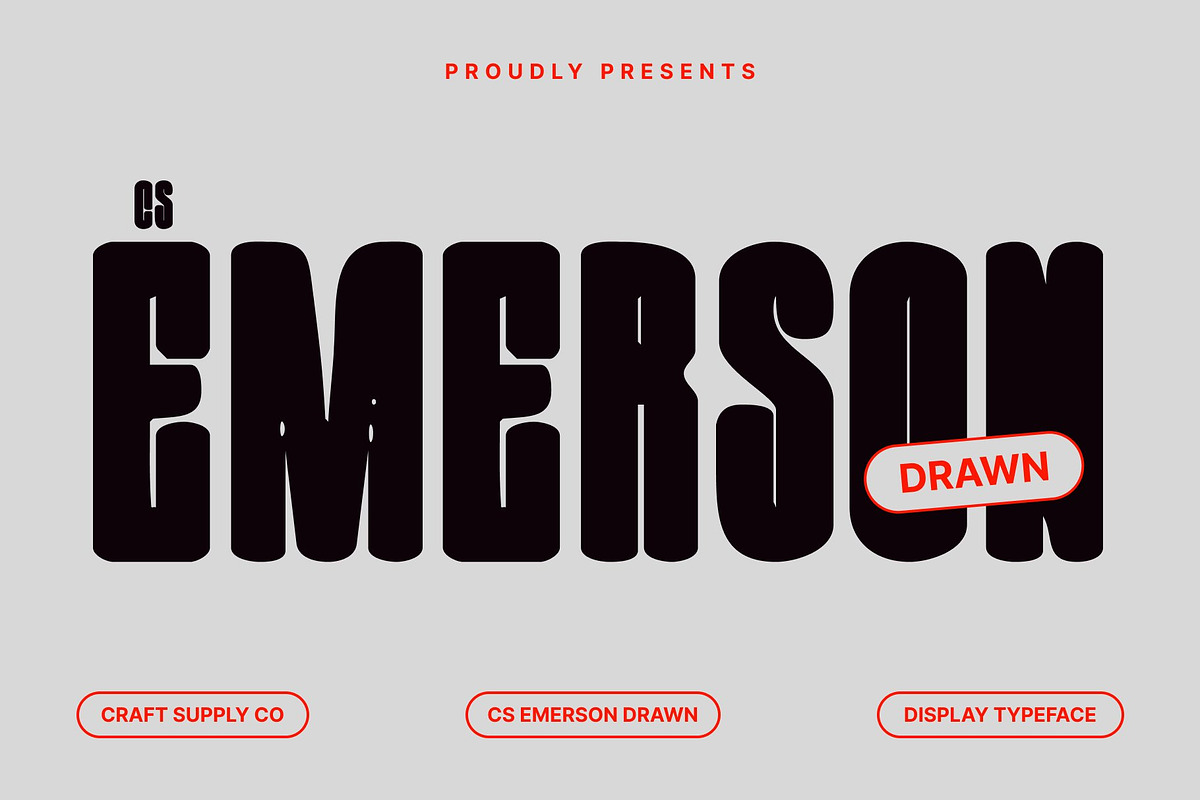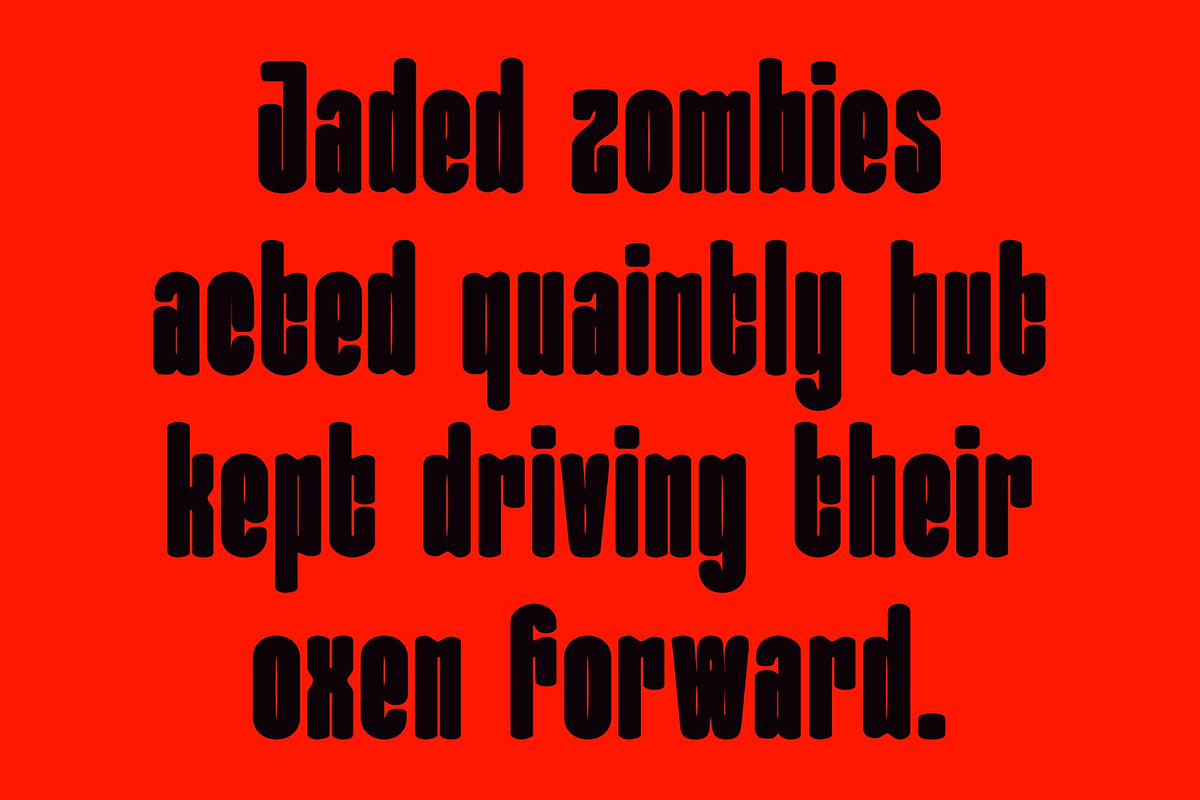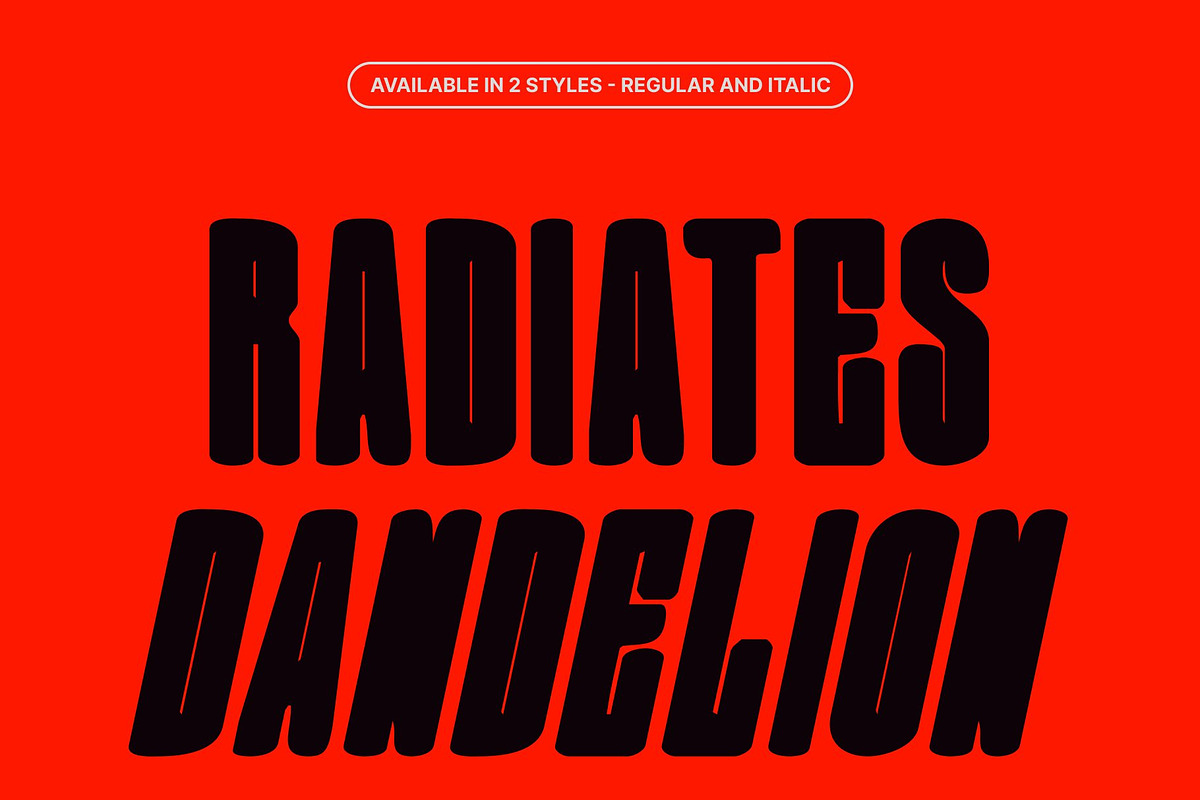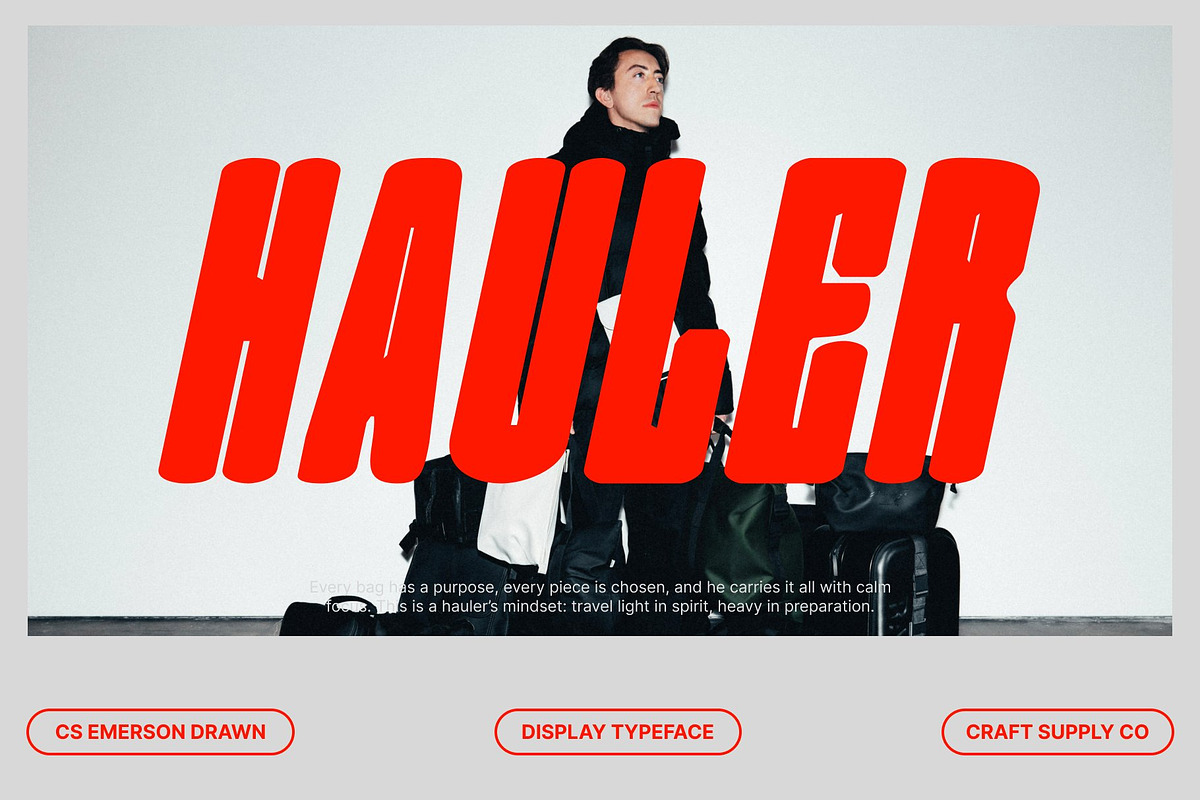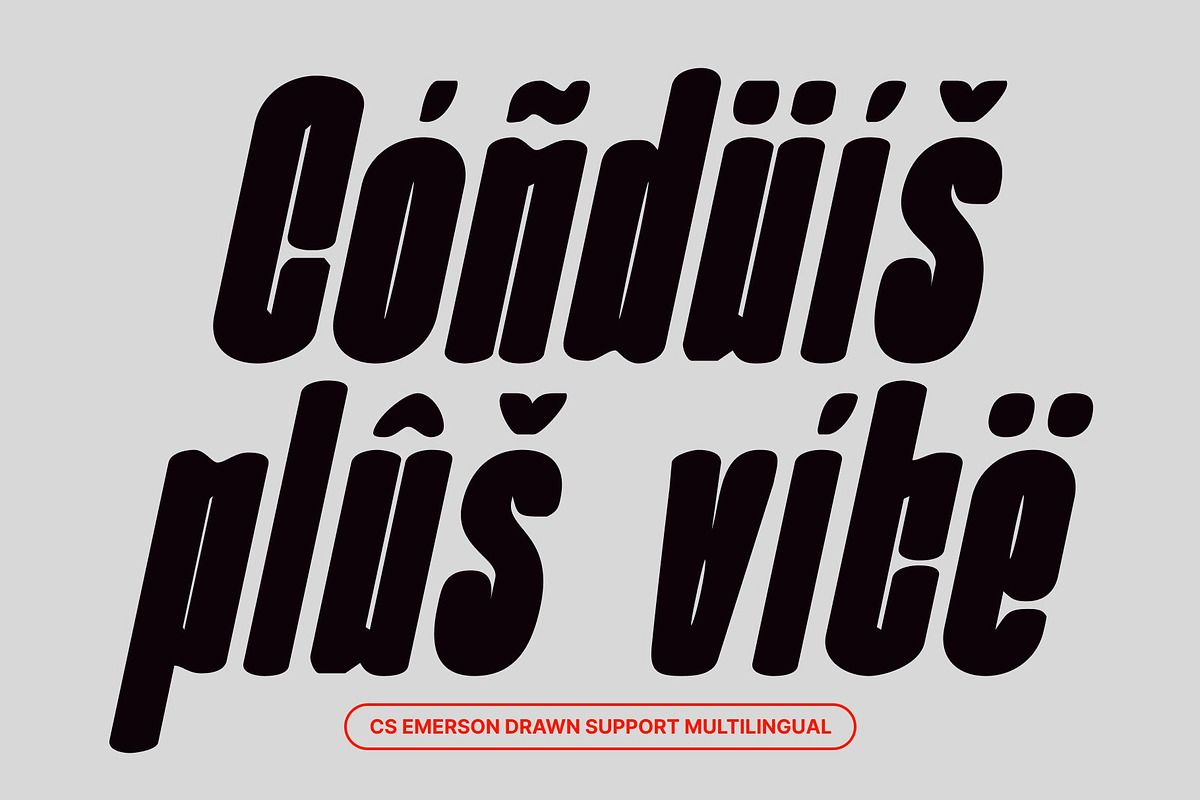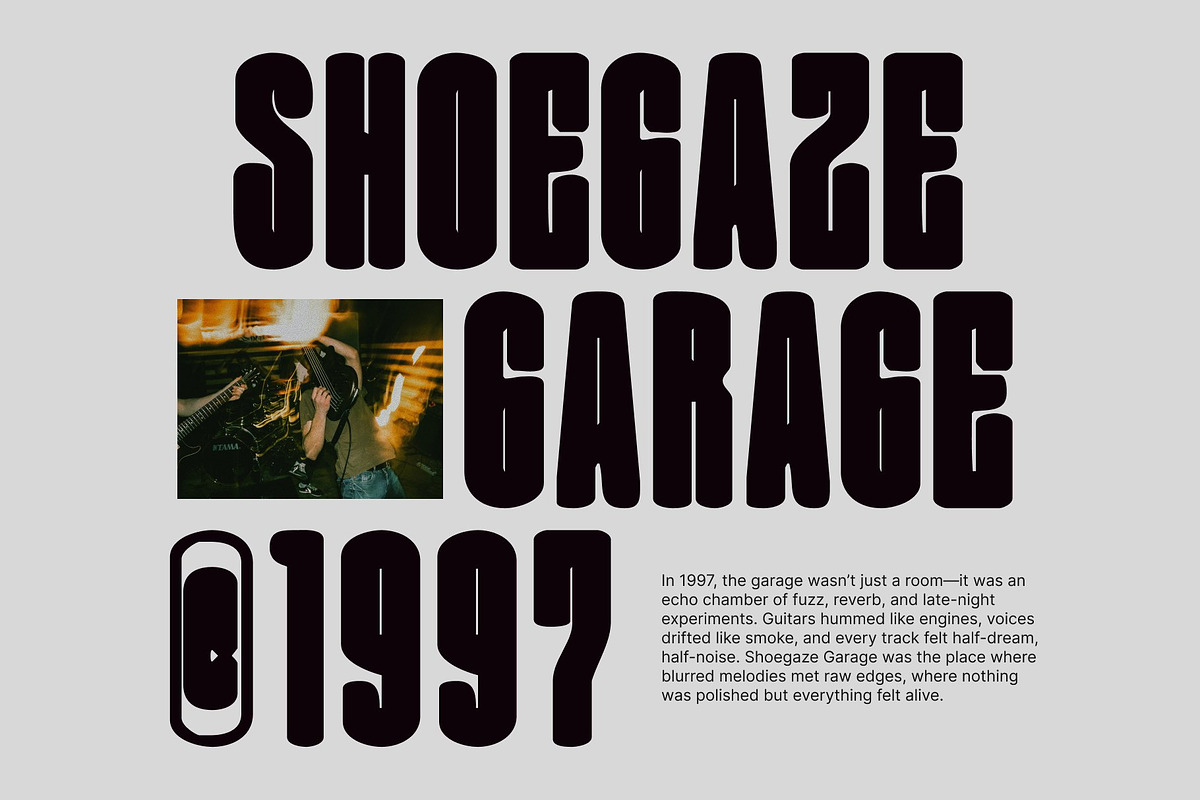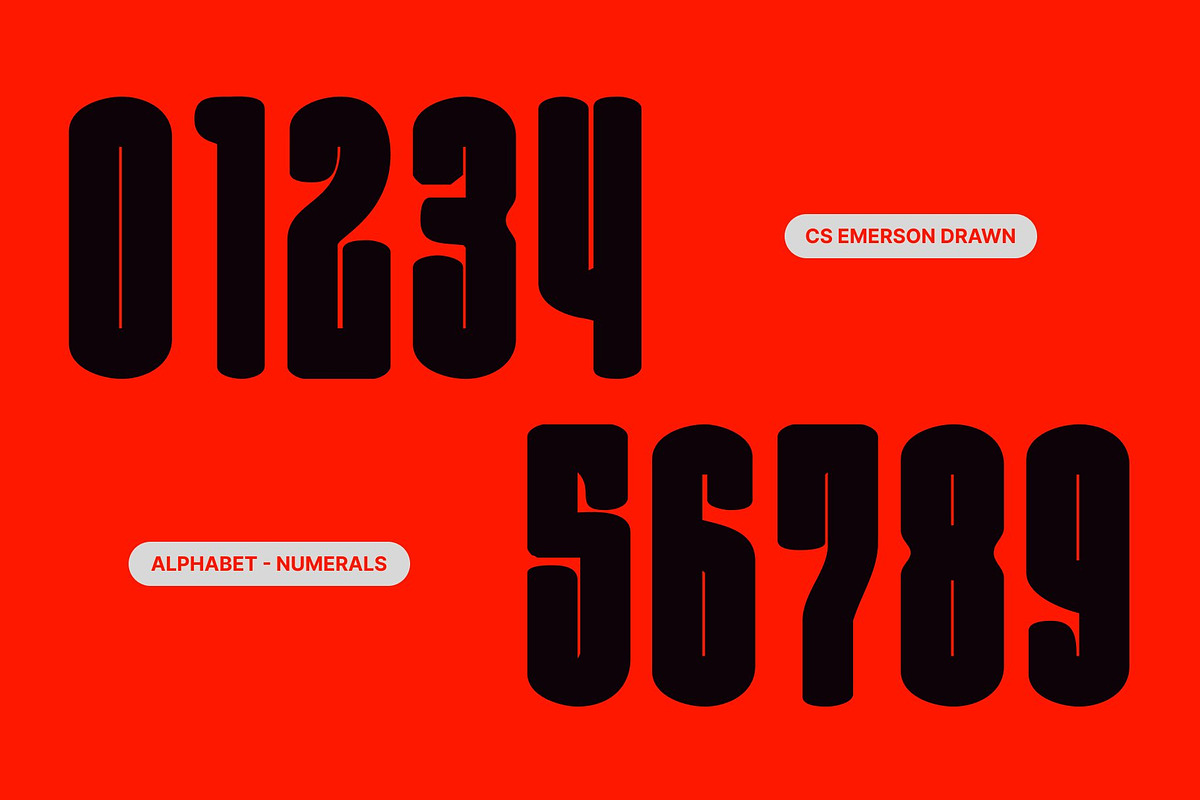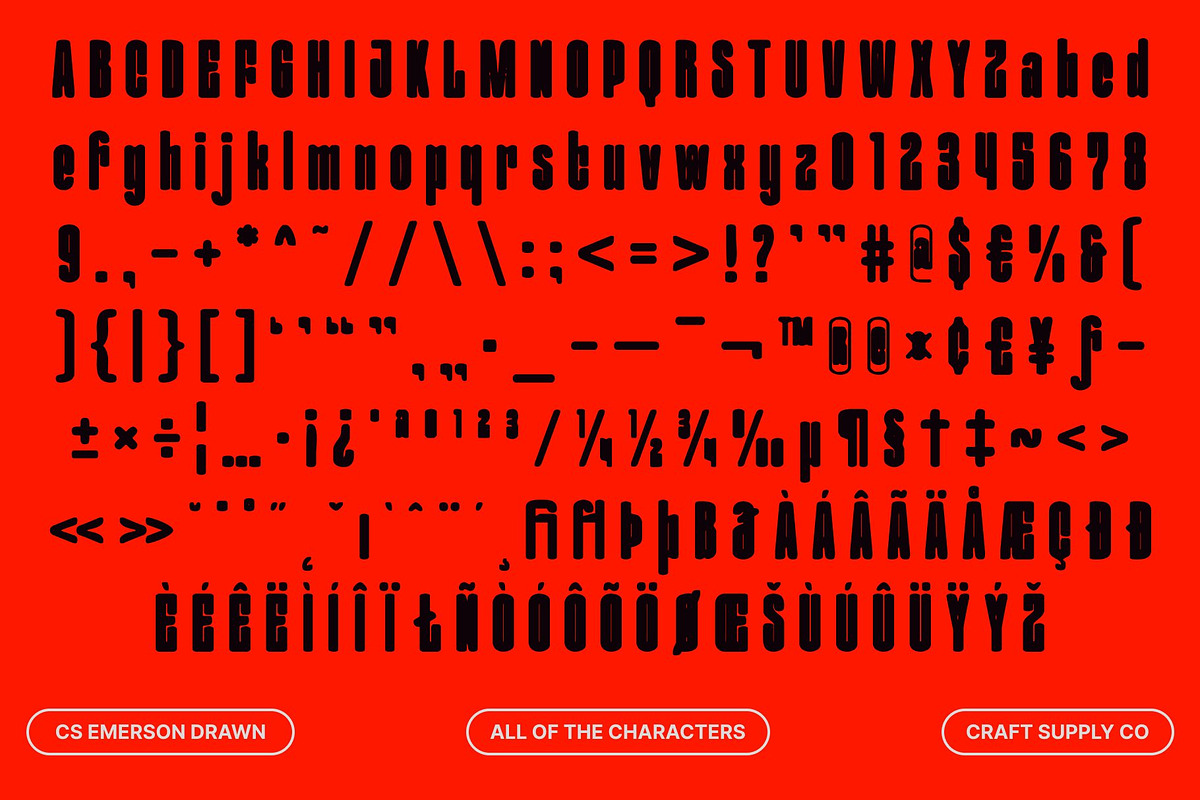
CS Emerson Drawn
CS Emerson Drawn – Bold Display Sans Serif: Retro Charm with Artistic Texture
Bold, Condensed Structure with a Soft Touch This is a bold, condensed display sans serif font that commands attention while maintaining readability. Its strong, compact letterforms provide impact for headlines, posters, and branding projects, while the slightly rounded edges add a subtle softness. Enhanced with a hand-drawn effect, each character carries a unique, textured personality that gives the font warmth and originality.
Retro Inspiration with a Modern Twist Rooted in classic retro aesthetics, revives nostalgic design elements through a contemporary lens. Its geometric balance and clean lines modernize vintage forms, while the drawn texture adds an artistic, handcrafted feel. This combination of retro charm and modern execution makes the font versatile for a wide range of creative applications.
Distinctive and Memorable Personality Every letter in this font is carefully crafted to stand out. The drawn effect introduces subtle imperfections and artistic details, making each character feel lively and expressive. This unique texture ensures that logos, posters, packaging, and editorial designs not only communicate clearly but also leave a lasting visual impression.
Ideal for Bold and Nostalgic Design Projects This font is perfect for projects that aim to blend nostalgia with contemporary style. From eye-catching social media graphics and apparel branding to posters and promotional materials, its bold weight, condensed structure, and artistic texture deliver a memorable, creative, and impactful typographic presence.